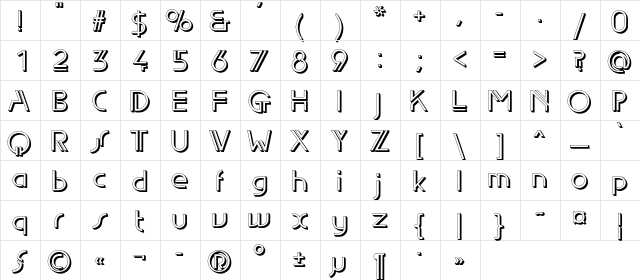
EdgeLineShadowC Regular Font Preview
EdgeLineShadowC Regular
Design Context for EdgeLineShadowC Typeface
EdgeLineShadowC is built around its visual character rather than neutral utility — its distinctive forms are designed to make an impression at display sizes.
Font Pairing: Pair with a clean neutral sans-serif for body copy to let EdgeLineShadowC's character lead without overwhelming the composition.
Pro Tip: Use EdgeLineShadowC exclusively at display sizes — it was designed to be seen, not read at length. Let a neutral companion handle body copy.